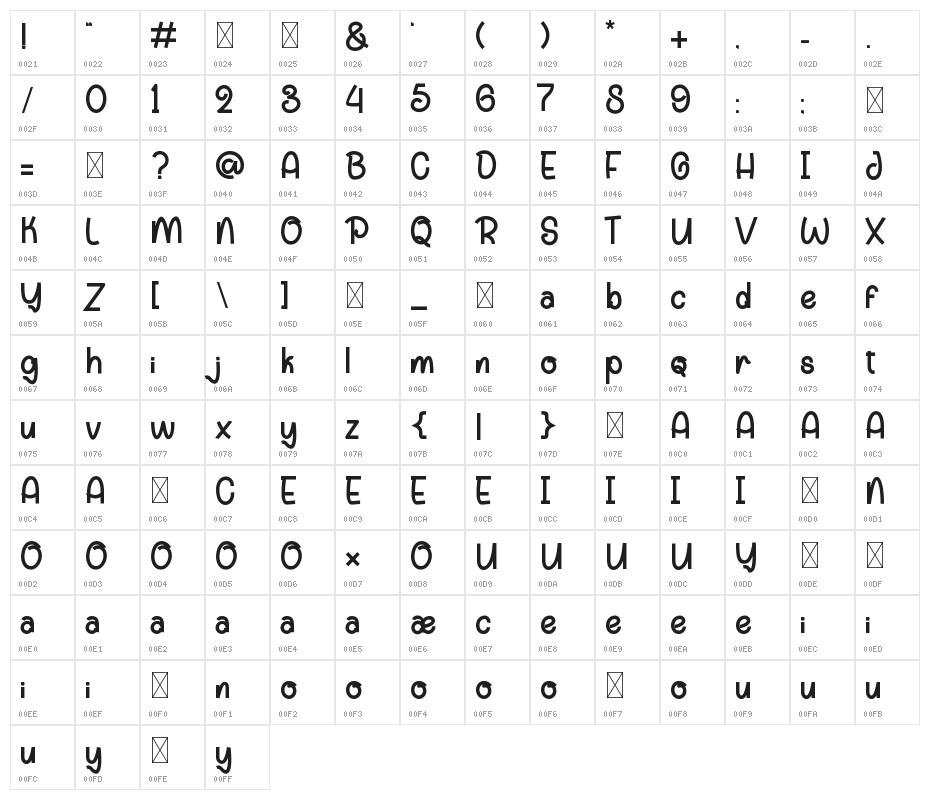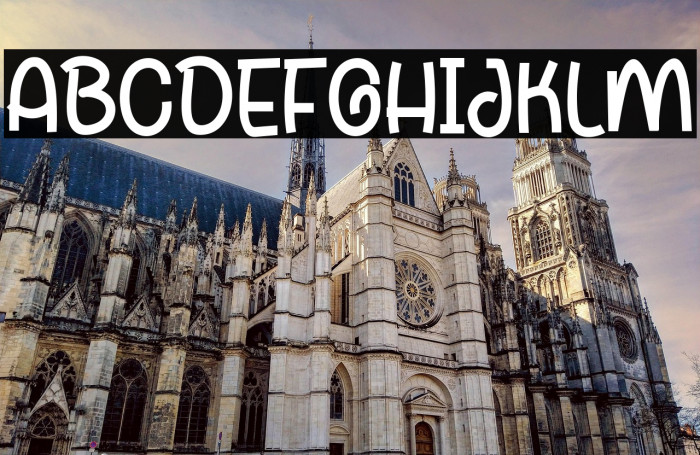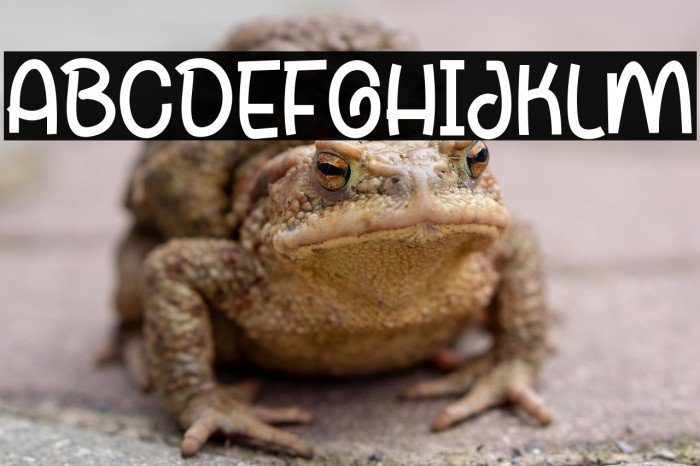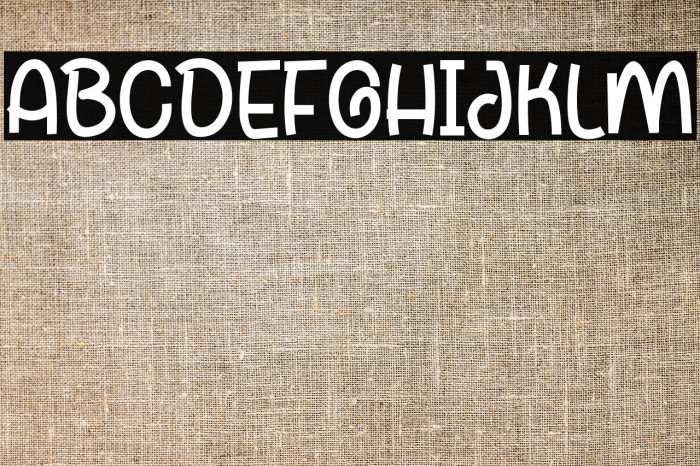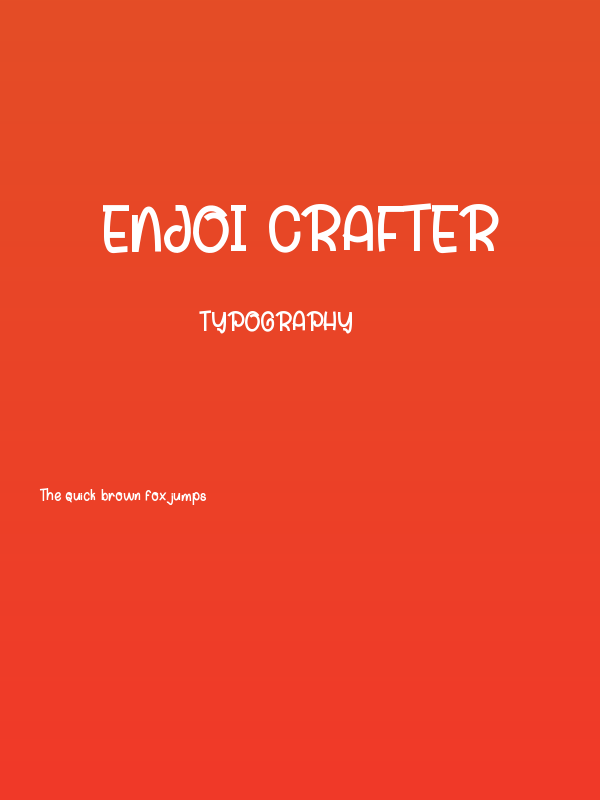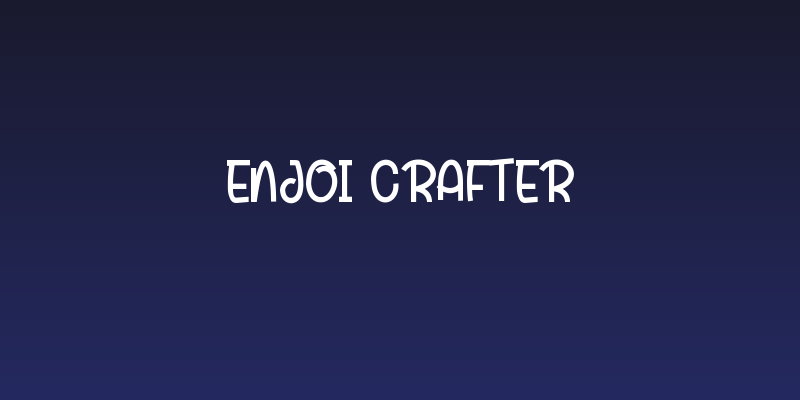
Enjoi Crafter Font
Enjoi Crafter Description
This playful and whimsical font features a unique blend of rounded and angular elements, creating a lively and engaging appearance. The uppercase letters are bold and slightly condensed, with a quirky twist on traditional letterforms. Lowercase letters maintain a consistent style, with some characters exhibiting playful loops and curves. The numerals are distinct and easy to read, with a consistent weight throughout. Special characters are creatively designed, adding to the overall charm of the font. This font's bold and friendly nature makes it ideal for projects that require a touch of fun and creativity.
| Proposed Projects | Ideal for children's books, playful branding, greeting cards, and creative posters. |